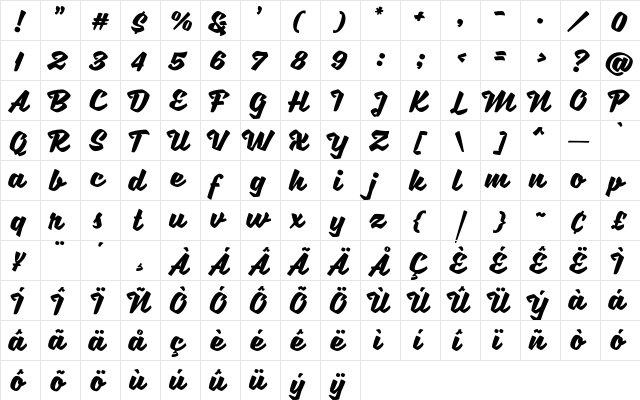
Sweet Sorrow Script
Design Context for Sweet Sorrow Typeface
Sweet Sorrow brings a calligraphic fluidity to the page — its connecting strokes and expressive curves give it an unmistakably human quality.
Font Pairing: Combine Sweet Sorrow with a simple geometric sans for maximum contrast — the tension between flowing curves and clean structure is a classic typographic pairing.
Pro Tip: Pair Sweet Sorrow with a clean sans-serif for supporting text. The contrast between fluid script and geometric structure creates an elegant typographic hierarchy.